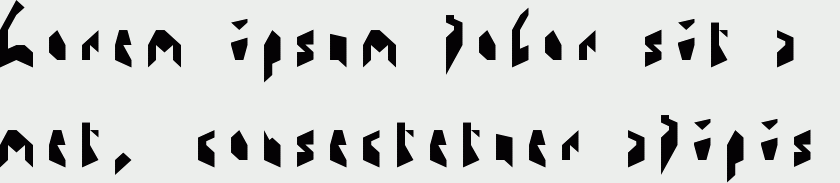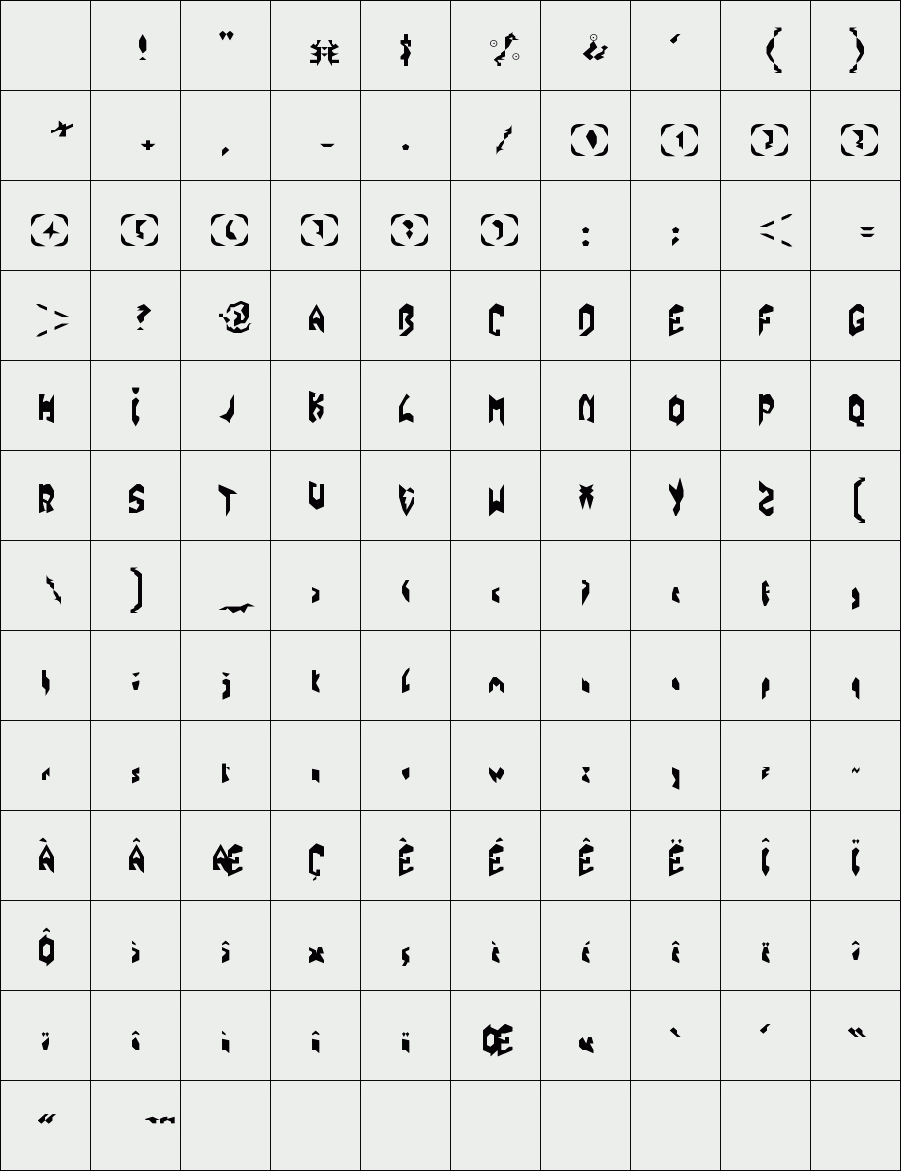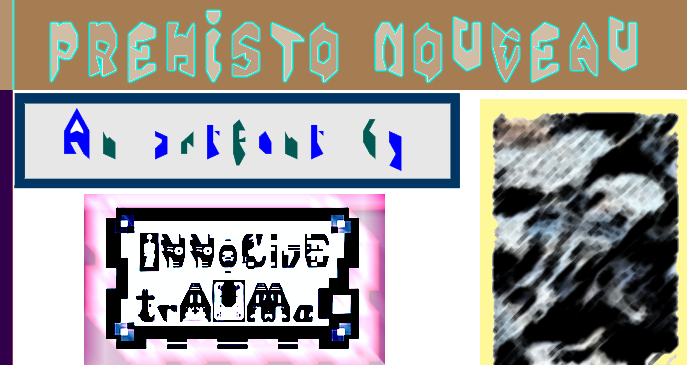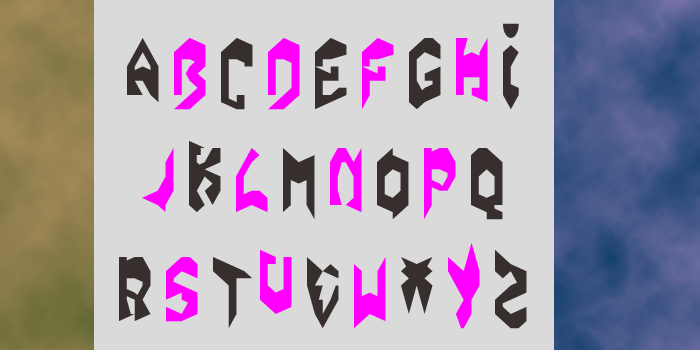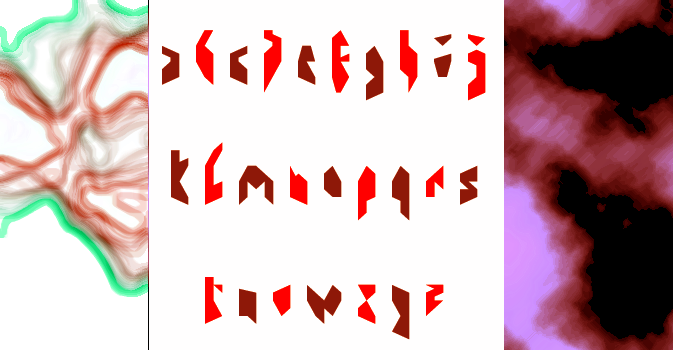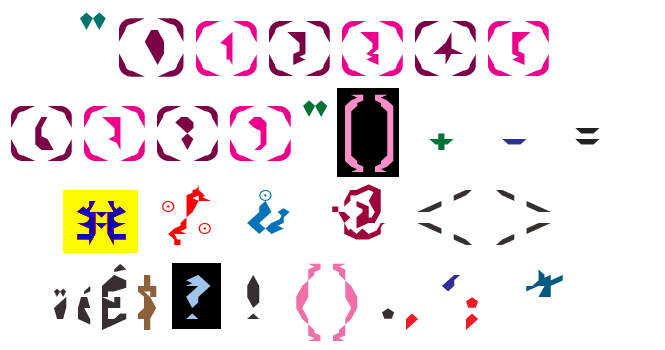
trAUMa 64 / Prehisto Nouveau
"Prehisto Nouveau", like all the "trAUMa" series, works at the frontier between Art & Type Design, Figuration & Abstraction, each font is a comprehensive world in which every glyph is a "living" entity. But put together they can produce your messages in the most accurate way.